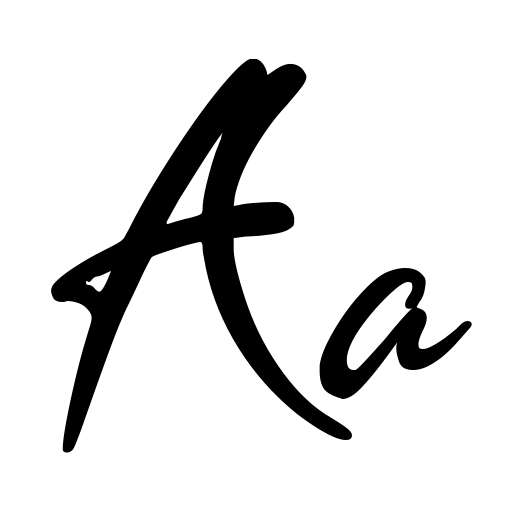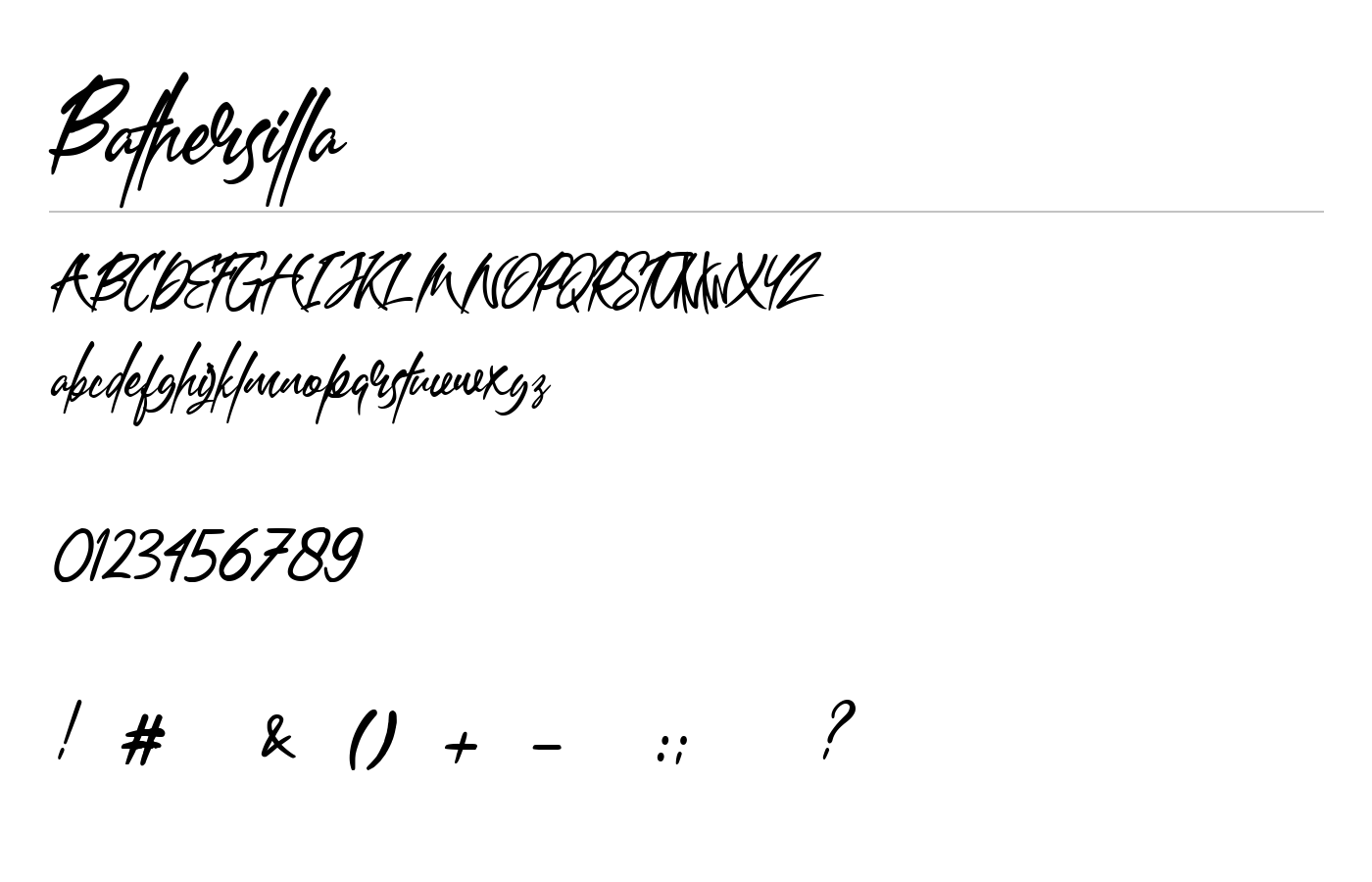
Bathersilla is a dynamic and elegant script font characterized by its fluid, hand-drawn strokes that blend casual spontaneity with a refined flair. Its slender, slightly condensed letterforms exhibit high contrast and sharp angles, creating a lively yet sophisticated personality perfect for stylish branding, fashion, or creative headlines where a personal, artistic touch is desired. This font works best in display contexts where its expressive style can shine without compromising readability.
Bathersilla Font
About Bathersilla Font
| Font family | Bathersilla Font |
| Designer | Mikro Type Std |